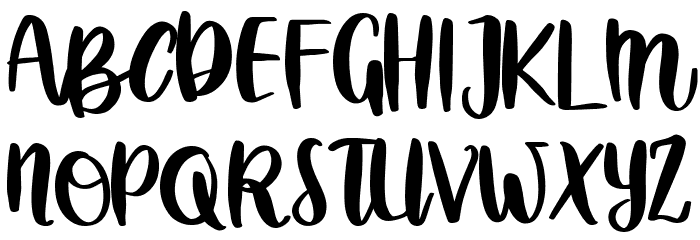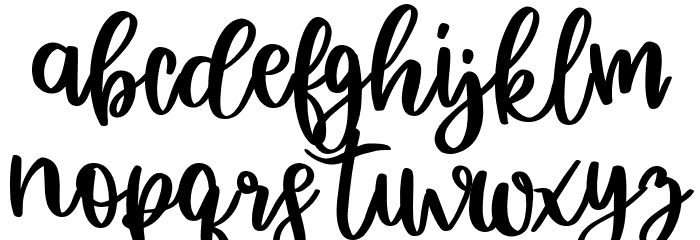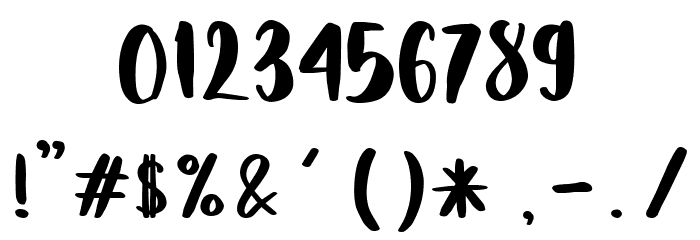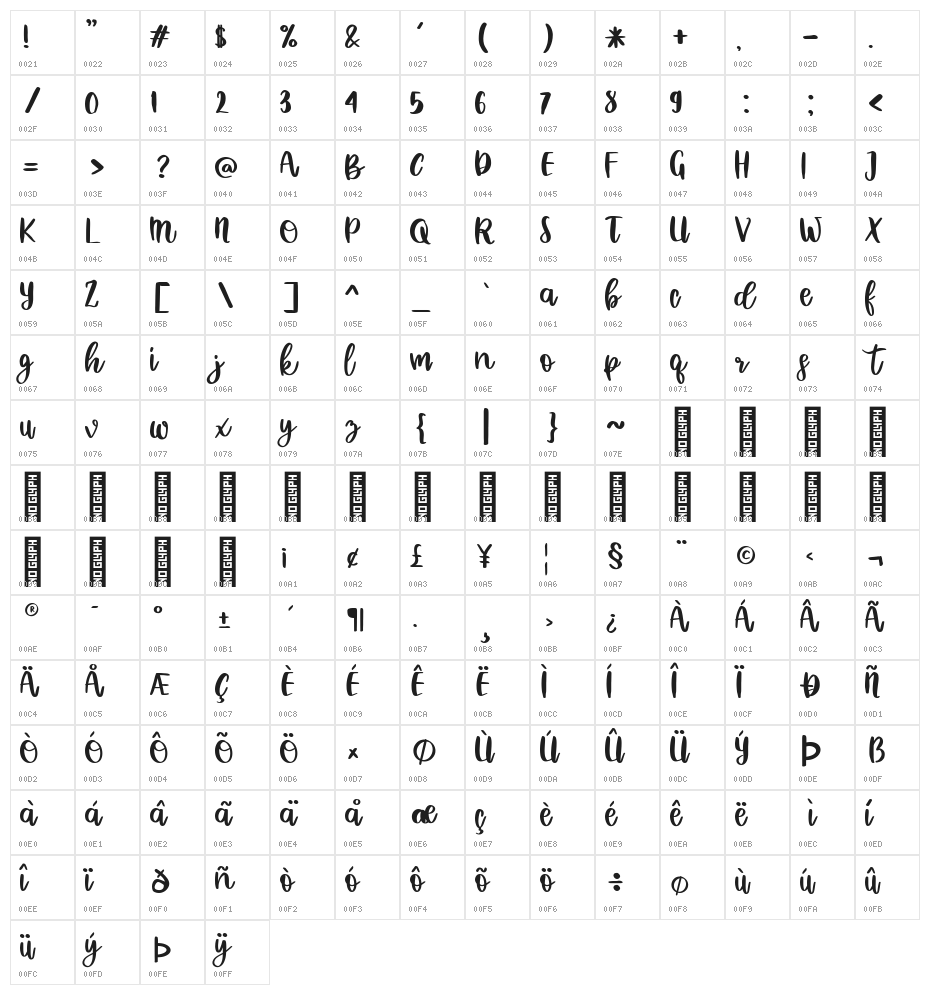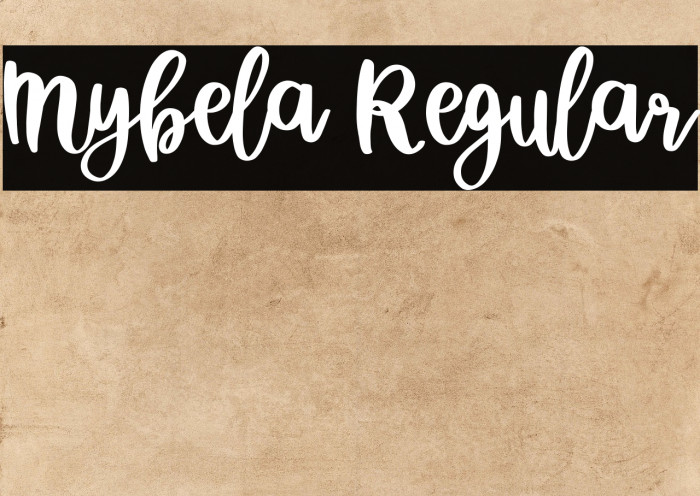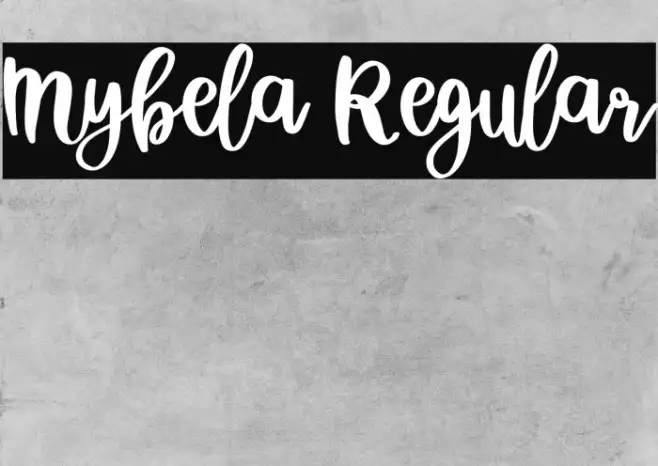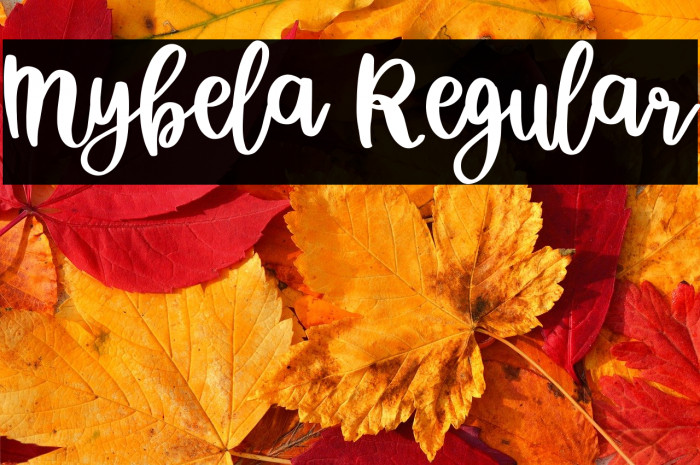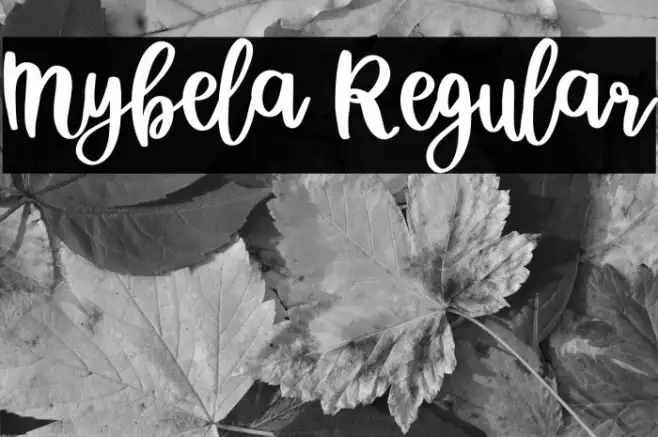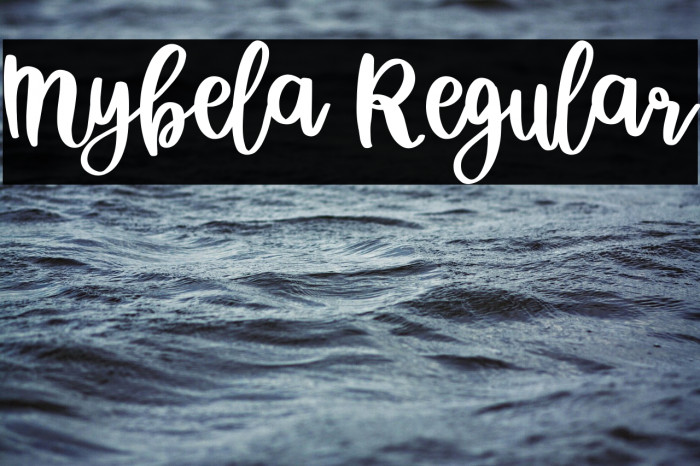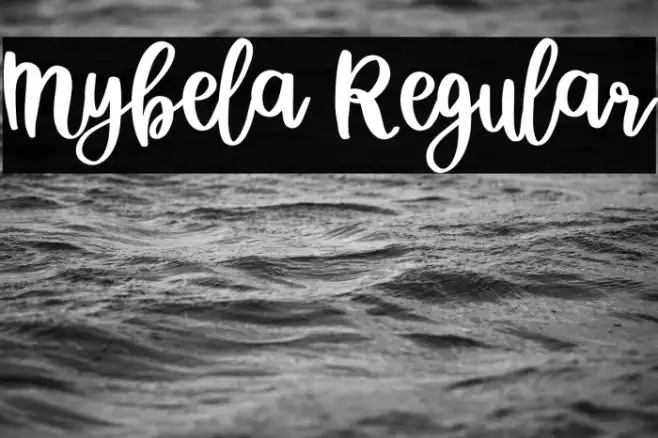
Mybela Regular Font
This font features a lively and flowing script style, characterized by its bold and expressive strokes. The letters are interconnected, giving it a handwritten appearance that is both casual and elegant. The uppercase letters stand tall with a slight slant, while the lowercase letters maintain a consistent flow, enhancing readability. The numerals and special characters are crafted with the same attention to detail, ensuring a cohesive look across all glyphs. This font's playful yet sophisticated design makes it suitable for a variety of creative projects.
A bold, flowing script font with a handwritten, elegant style.
- Proposed Projects: Ideal for wedding invitations, greeting cards, branding, and social media graphics.